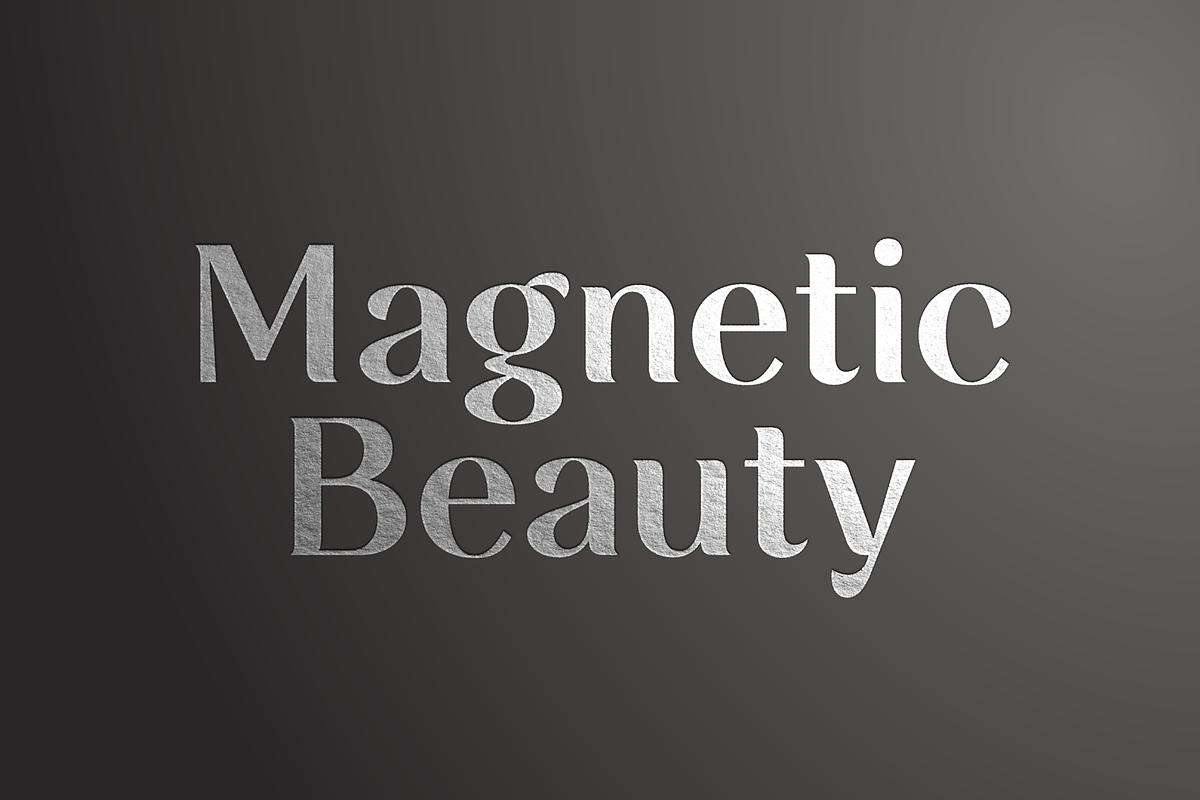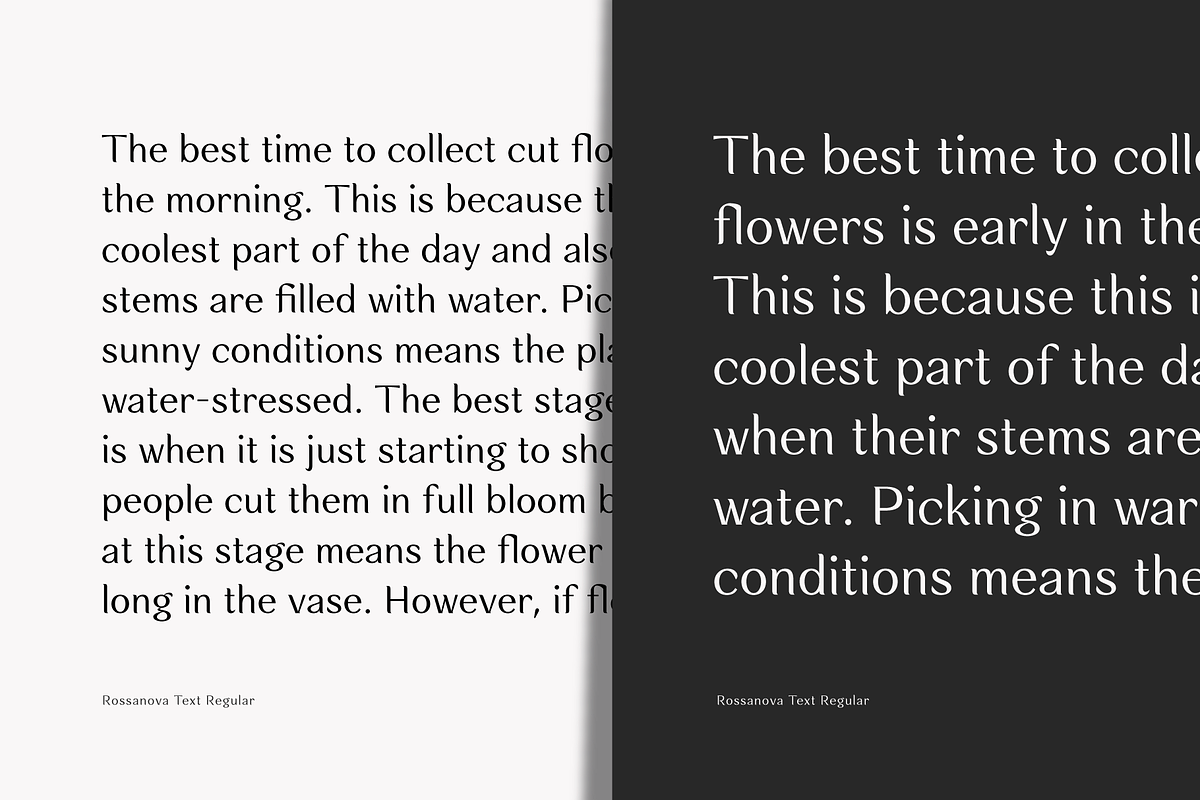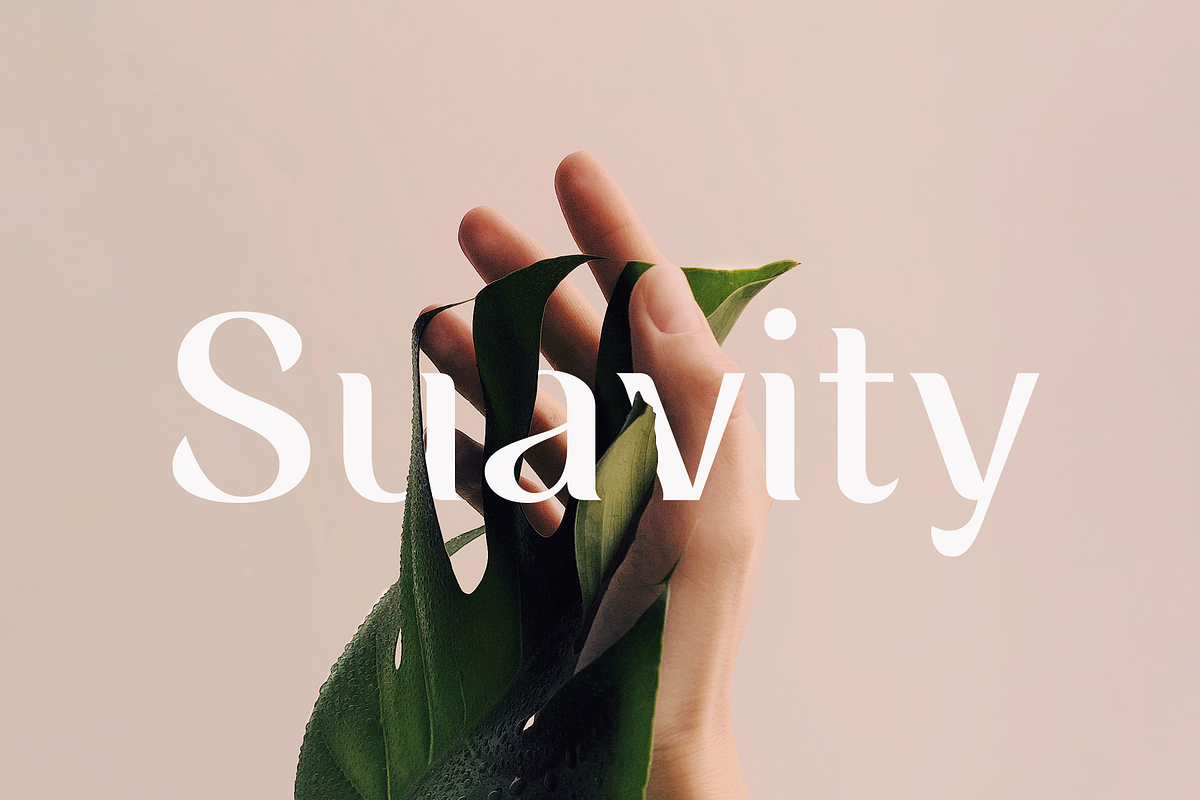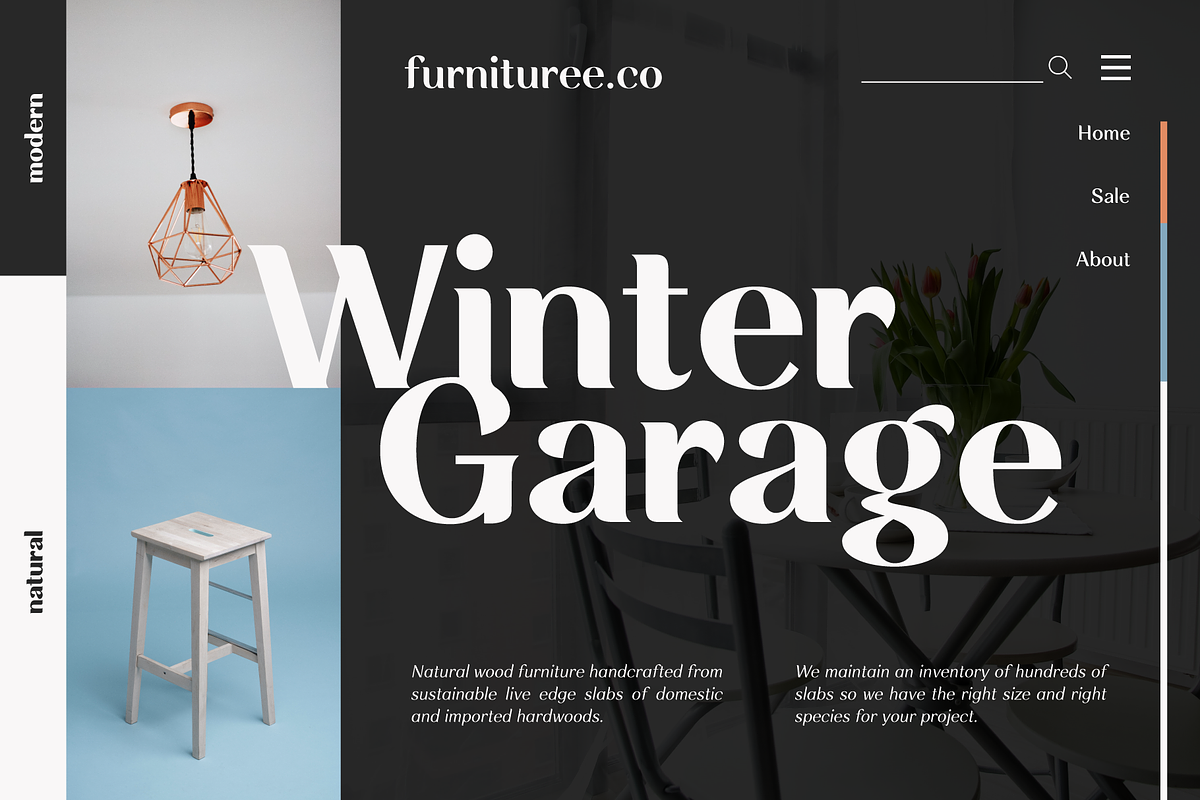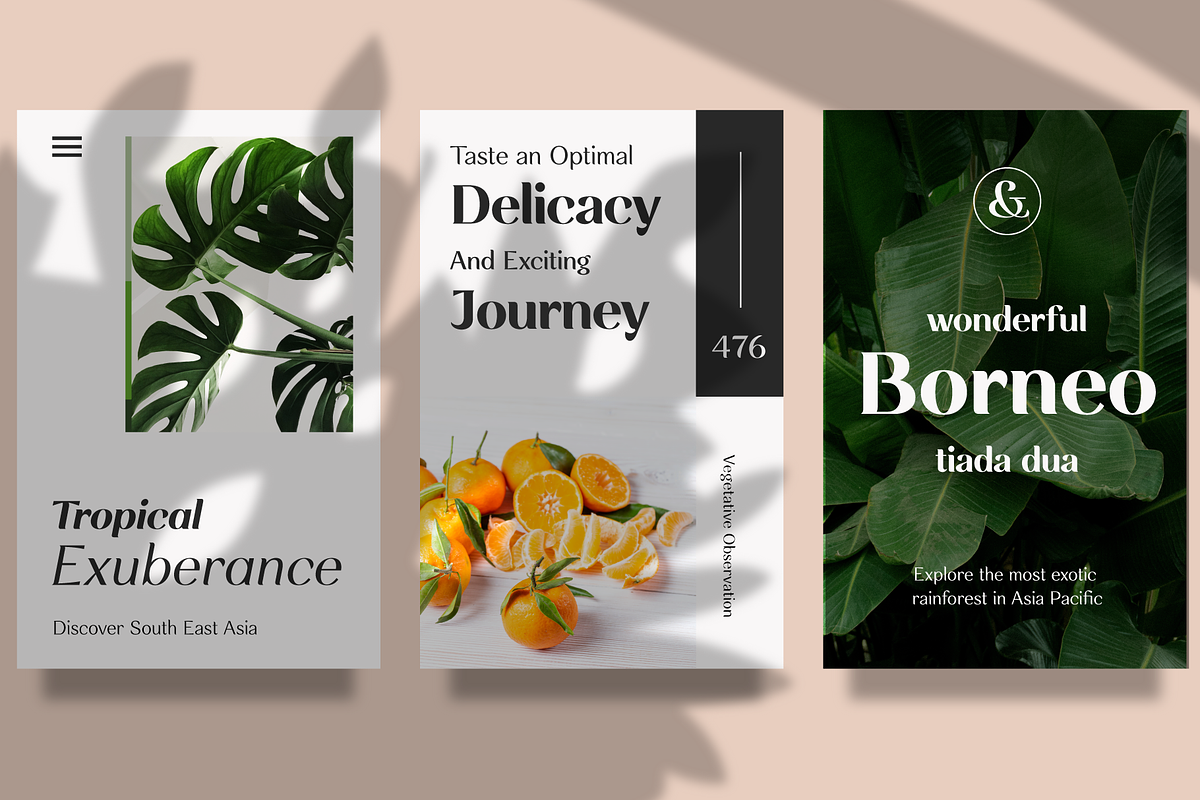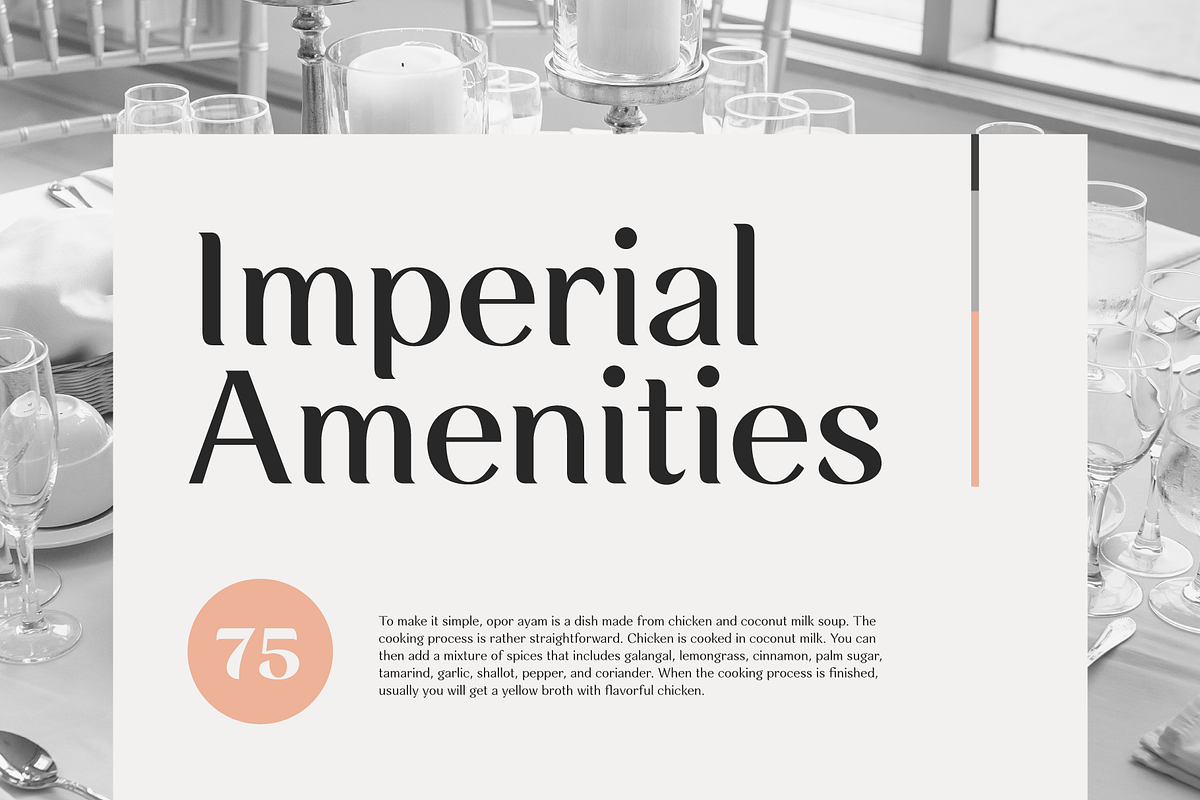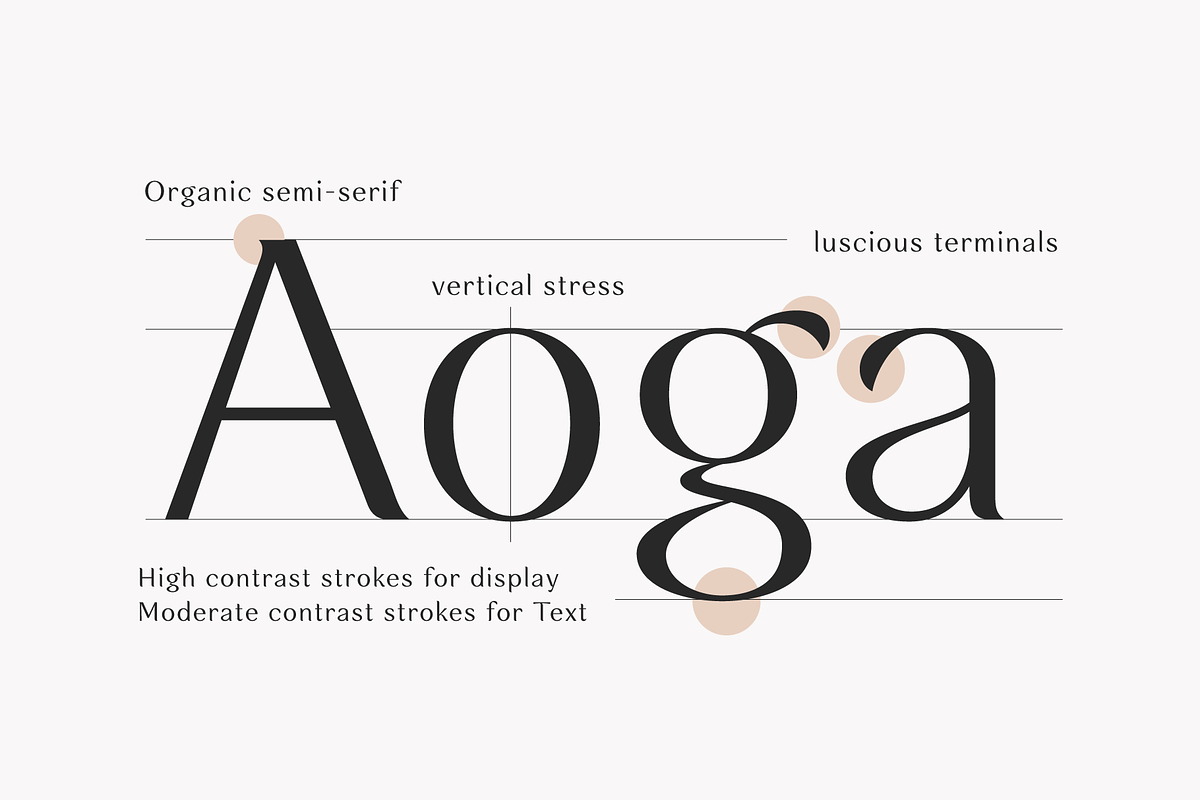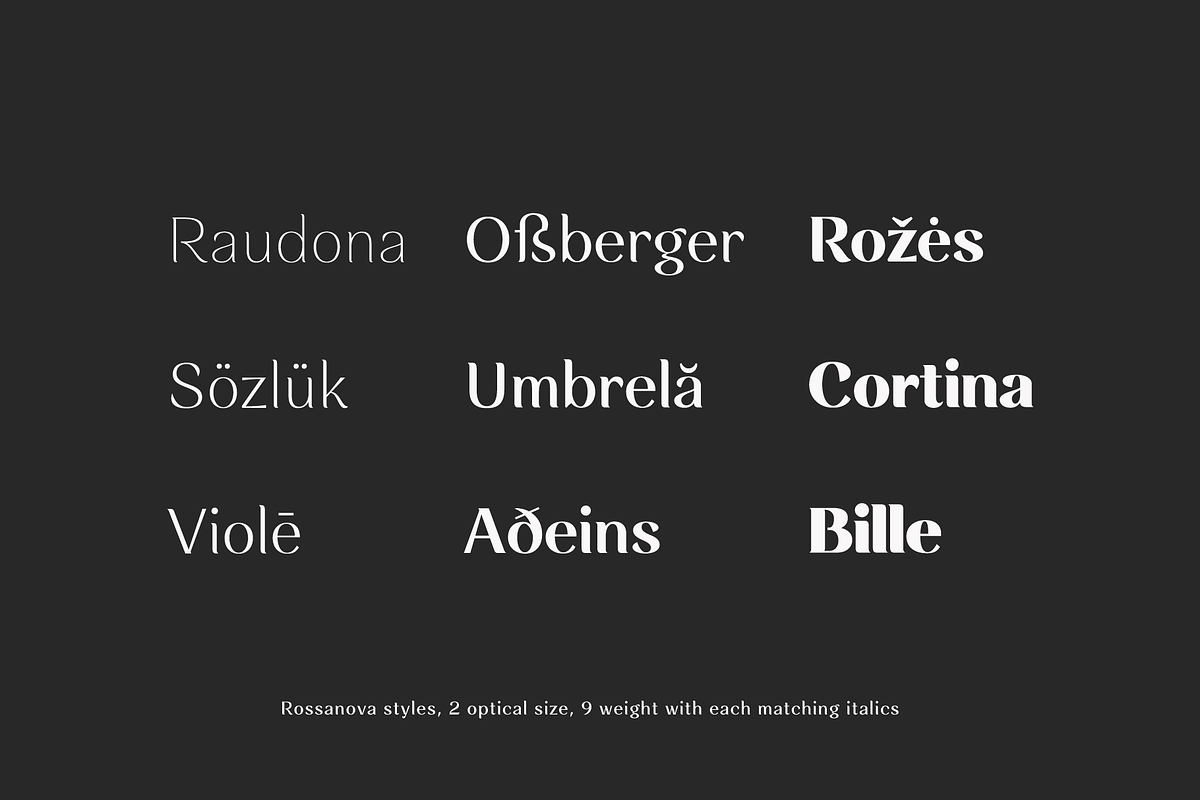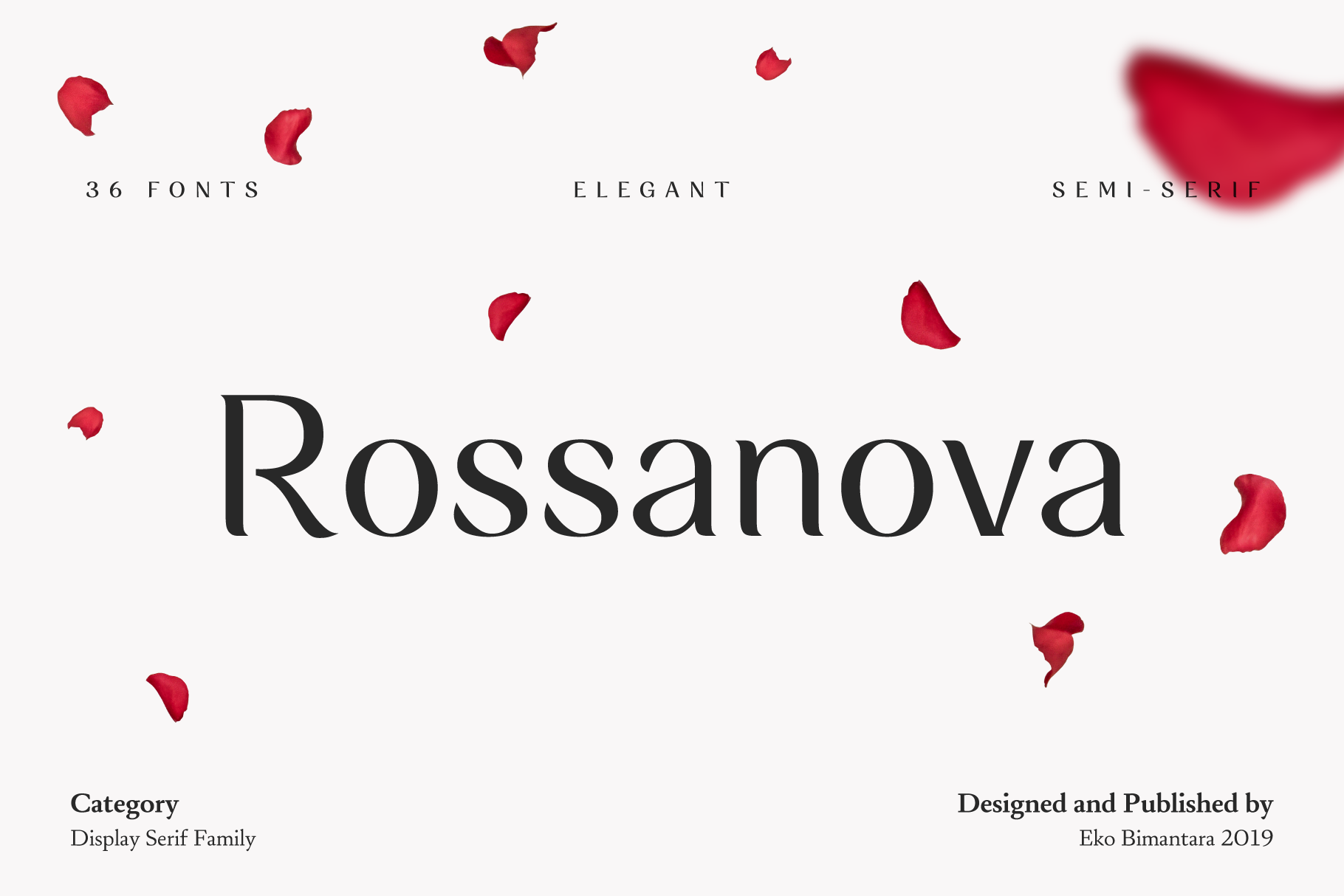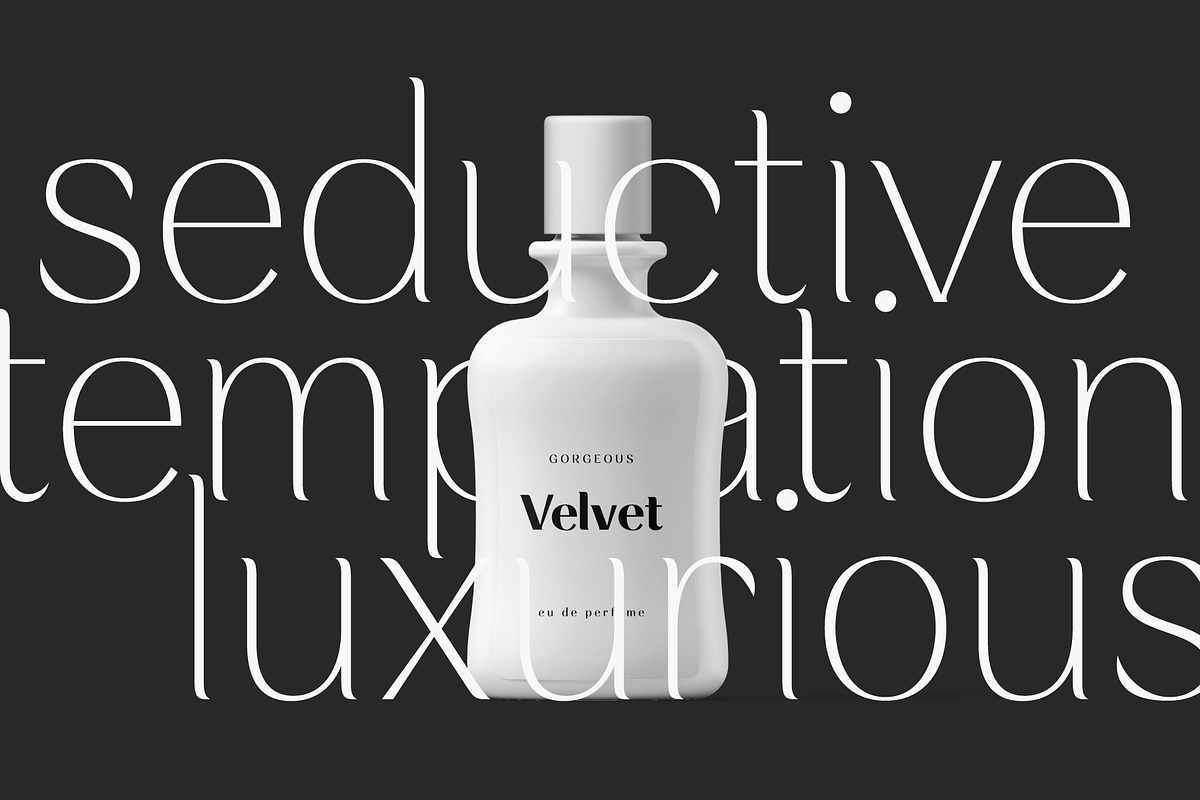
Rossanova; 36 Elegant Fonts
Rossanova is complete semi-serif font family. Its consist of 36 fonts; 2 optical size, 8 weight from thin to black with each matching italics. Rossanova is enrich with beautiful personality, its shaped in high contrast strokes for the normal optical style and moderate contrast strokes for the text styles which fit for reading. Contain more than 470 glyphs with some opentype features e.g, stylistic alternates, ligature, discretionary ligature, old number, variation of figures e.t.c.